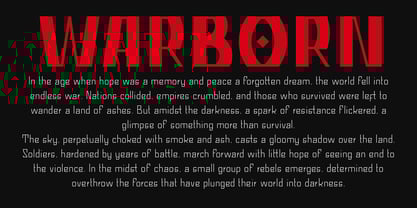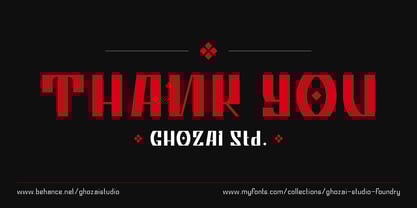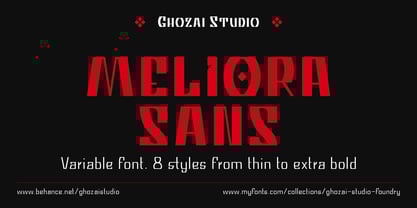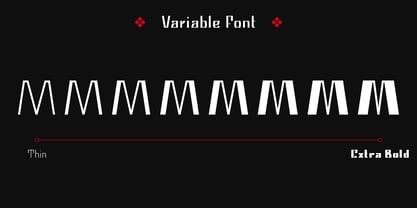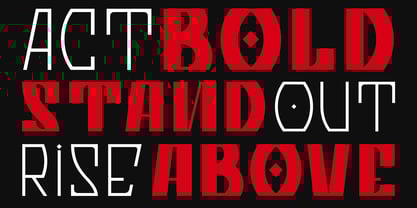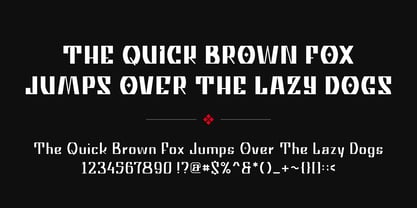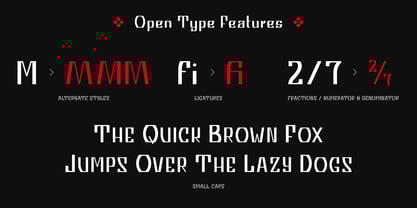
Meliora Sans
by Ghozai Studio
The Meliora Sans Font Family was designed by Manzur Ghozaali and published by Ghozai Studio. Meliora Sans contains 8 styles and family package options. More about this family
Meliora Sans is a font inspired by letters that appear to be cut at both the top and bottom, creating a unique visual aesthetic. Its design features a blend of bold, thick, and thin lines, resulting in dynamic typography that captures attention. With a wide range of variations, from thin to extra bold, Meliora Sans offers limitless versatility, making it an excellent choice for various design applications, including posters, headlines, logos, and branding materials.
Designers: Manzur Ghozaali
Current Foundry: Ghozai Studio